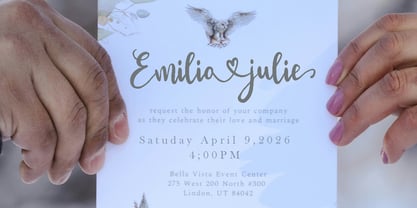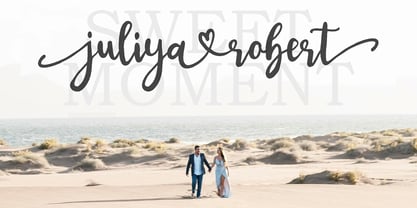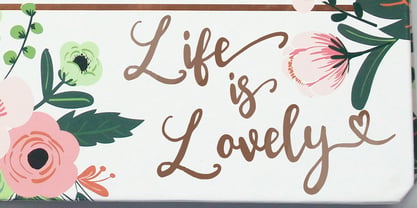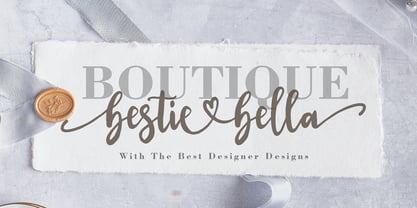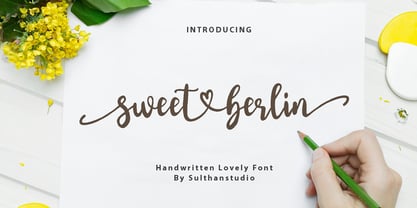
Sweet berlin
by Sulthan Studio
The Sweet berlin Font Family was designed by Nasrullah and published by Sulthan Studio. Sweet berlin contains 1 styles. More about this family
Bask in the organic allure of this unique handwritten brush font. Crafted with instinctual flair, its striking style pulses with a sense of freedom, bereft of any references. An embodiment of natural elegance, this font takes the essence of handcrafted artistry to revamp your design landscape. Experience the spontaneous charm of thoughtfully designed letterforms with this distinctive brush font.
Designers: Nasrullah
Foundry: Sulthan Studio